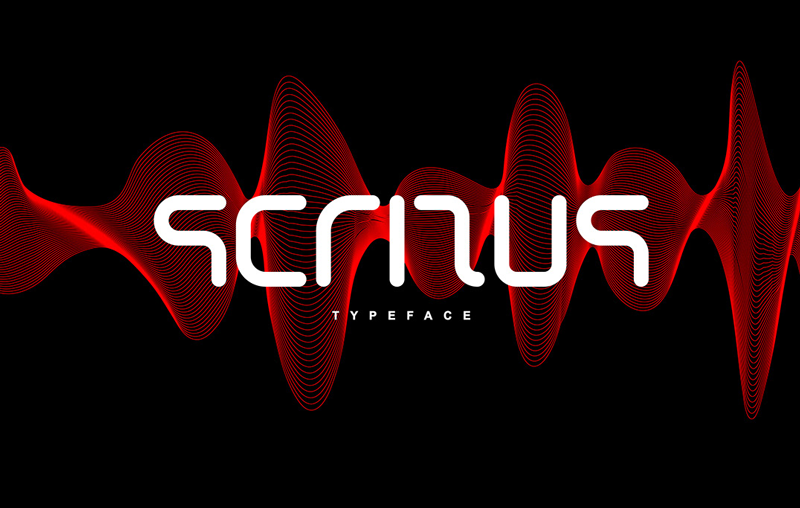
Scritus Font Family
Introducing Scritus. It is designed and shared by Alhussein Ibrahim. It’s a futuristic typeface with rounded ends and rounded courners. Comes in four weights. It’s name (scritus) derived from the latin language (scripturam linearibus) means (linear writing) to xpress the phylosophy of it’s design (one line forms a single shape) except some characters to be recognizable.